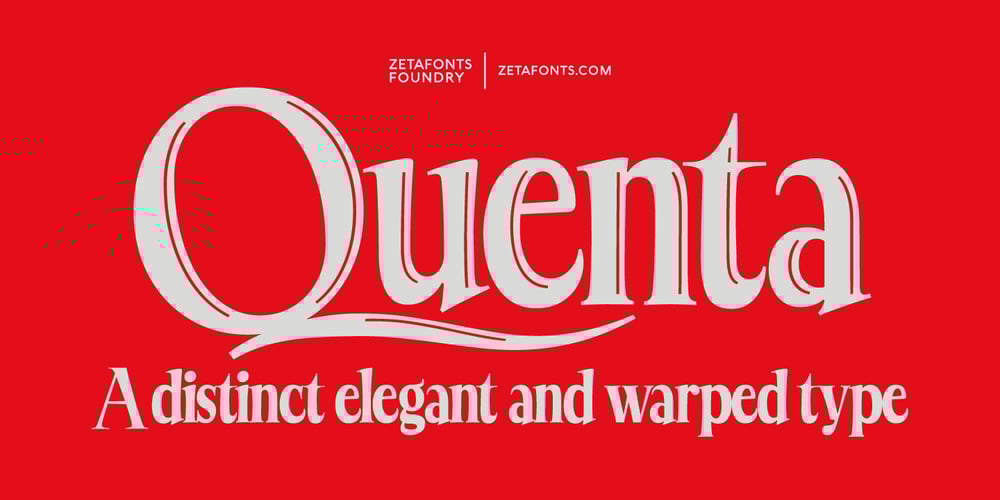
Quenta
Quenta font
Quenta Font Family was designed by Francesco Canovaro and published by Zetafonts. Quenta contains 4 styles and family package options. Canovaro was inspired by the hand-lettered masthead of Queenslander, a weekly magazine published during the first half of XIX century. The condensed serif letterforms of the magazine title, with the warm, human touch gave the shapes of Quenta a lively personality and a literary charme. To let you experiment with his vintage decorative layers, it comes in 4 styles including discretionary ligatures to allow you to use script elements to enrich its expressive range for editorial and logo design.